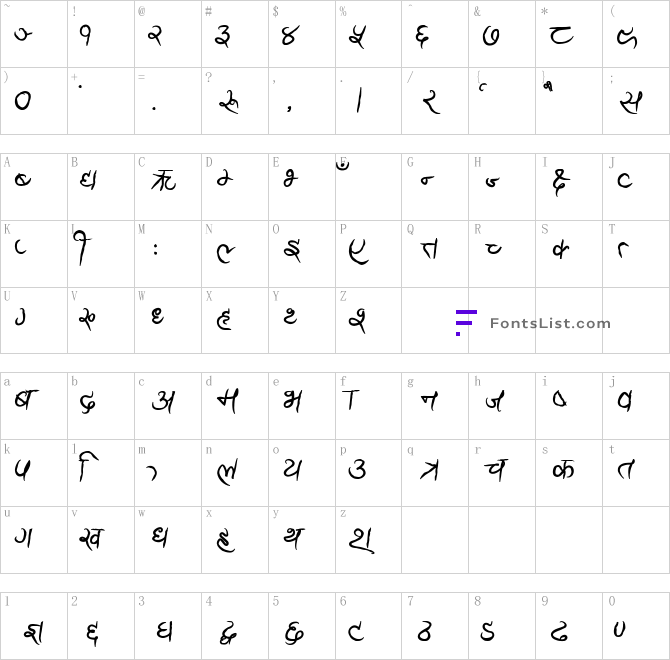
- Font Name:Ananda Sumitra Bold
Ananda-Sumitra-Bold.ttf is a very beautiful artistic font, Ananda-Sumitra-Bold.ttf is widely used in the design and printing of various books and pictures,Ananda-Sumitra-Bold.ttf has a strong visual impact,Ananda-Sumitra-Bold.ttf is a commonly used font in newspapers, magazines and books, and is used in posters, e-commerce Poster design, store design, logo design, font design and other fields.Ananda-Sumitra-Bold.